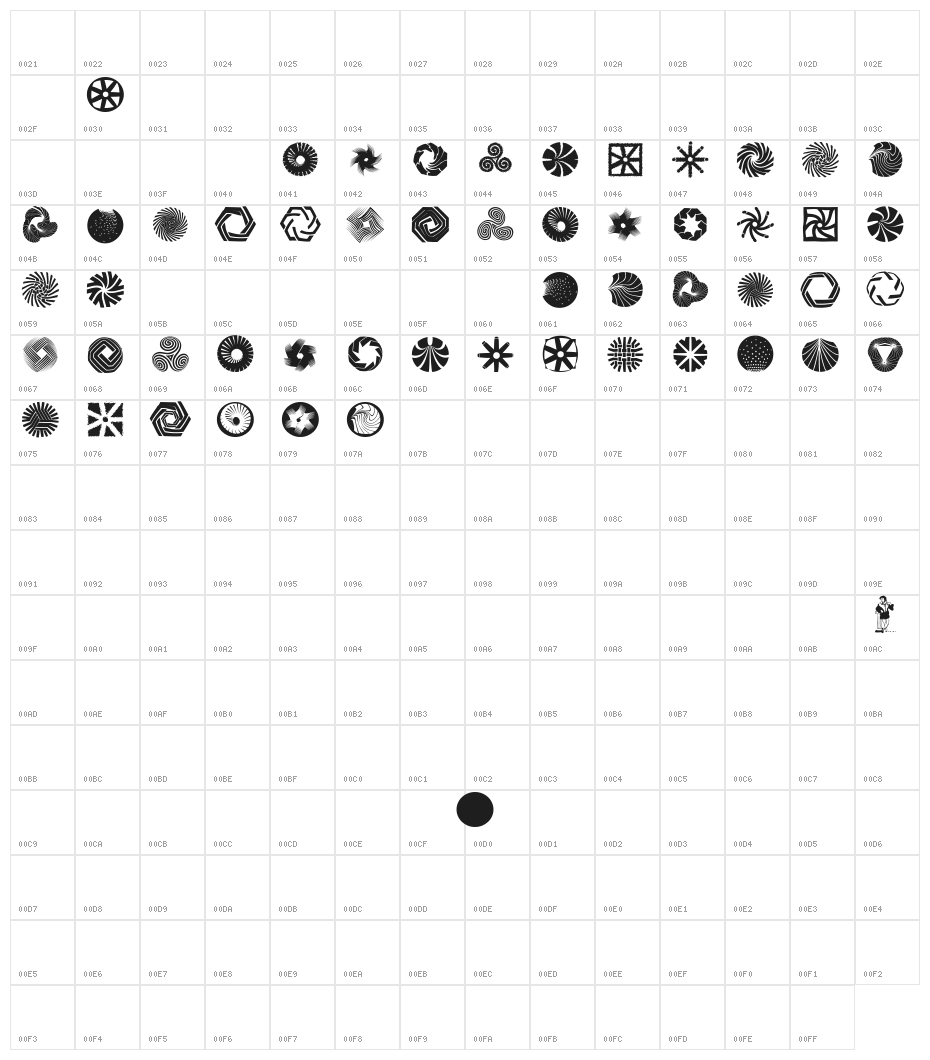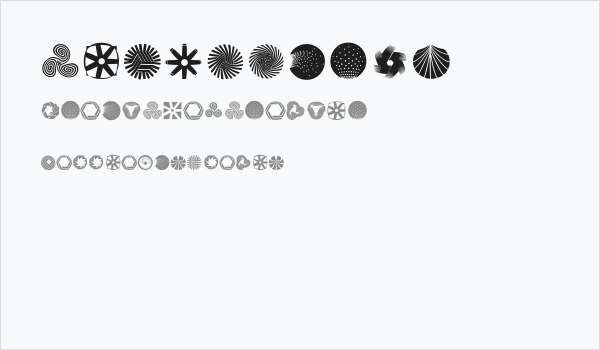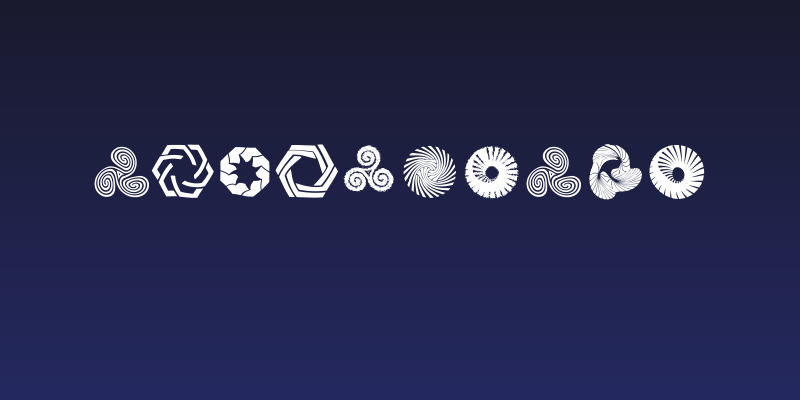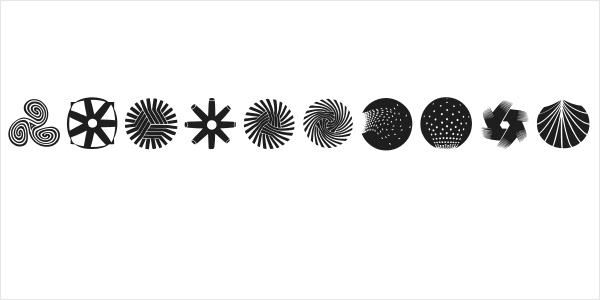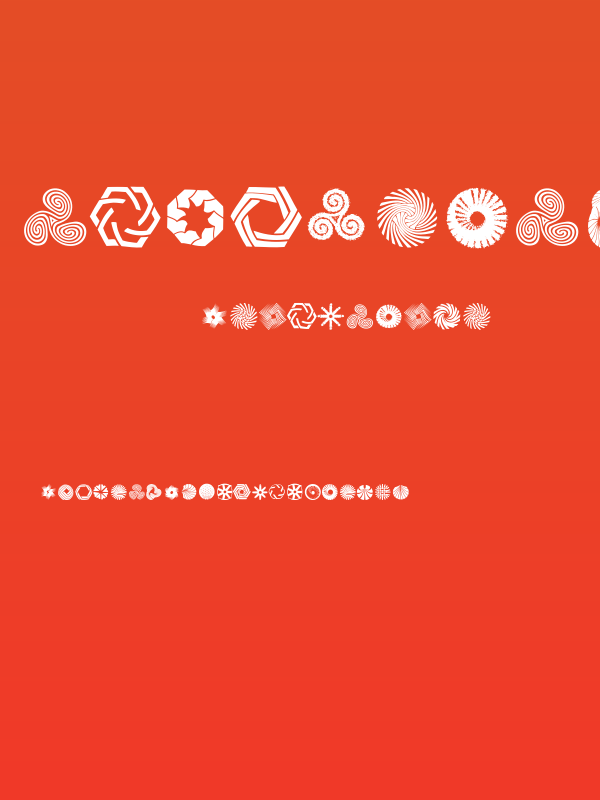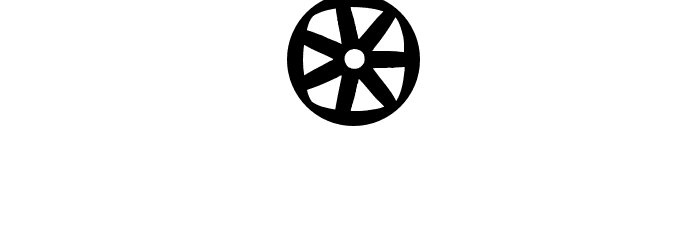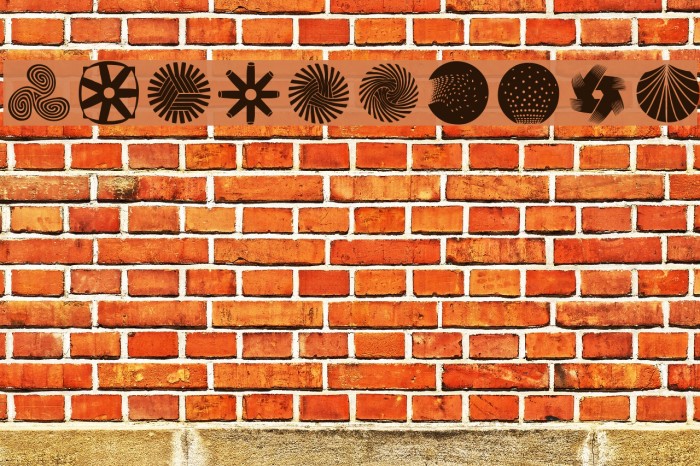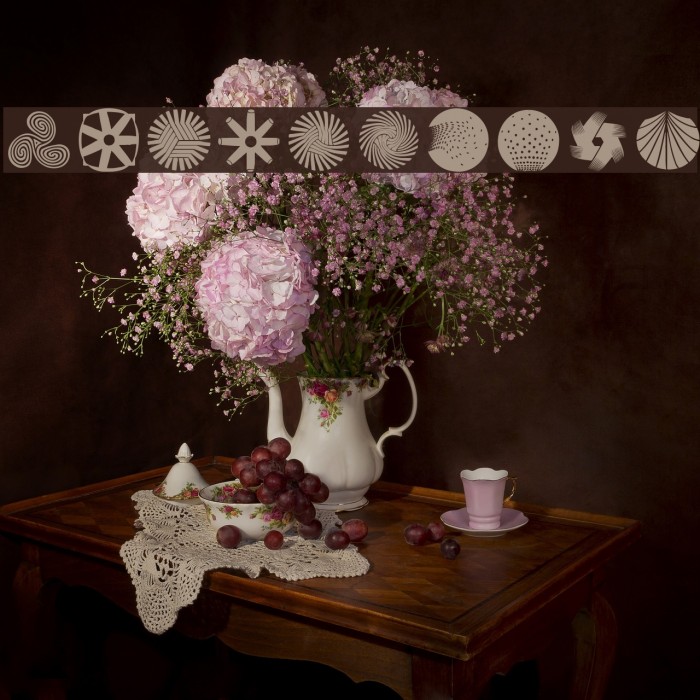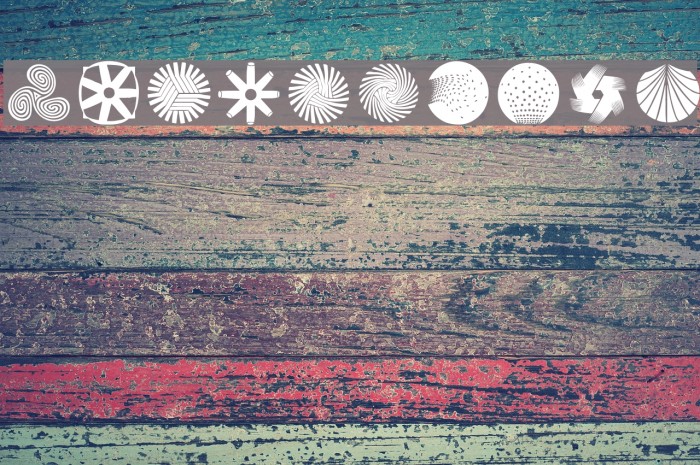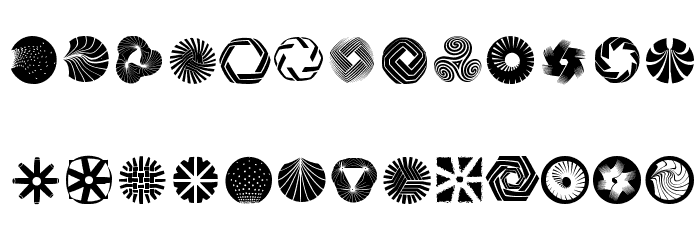
RoundMarks Font
RoundMarks Description
A collection of geometric, circular, and abstract symbol glyphs with varying line weights, fills, and intricate patterns, all contained within round or polygonal shapes. The designs range from simple spokes and dots to complex spirals and optical illusions, offering a diverse set of decorative marks.
| Overall Style | Modern, Decorative, Abstract |
| Use Case | Logos, Icons, Decorative elements, Branding |
| Proposed Projects | Branding, logo design, icon sets, packaging, posters, digital interfaces, decorative dividers. |